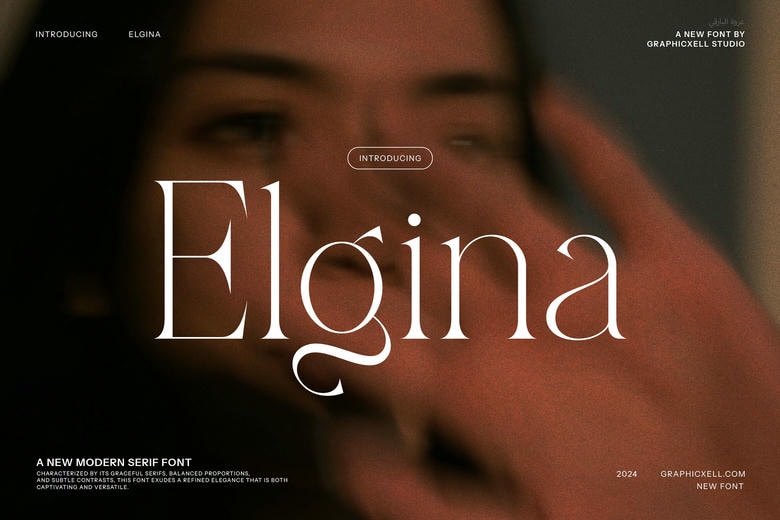
Elgina Font
Elgina is very elegant font, minimalist, modern,-serif typefaces which are distinguished by the sharp lines. With sharp and clean lines in it’s letter shapes it masks a very refined feel to the document to which it is being applied.
Elgina Serif Font